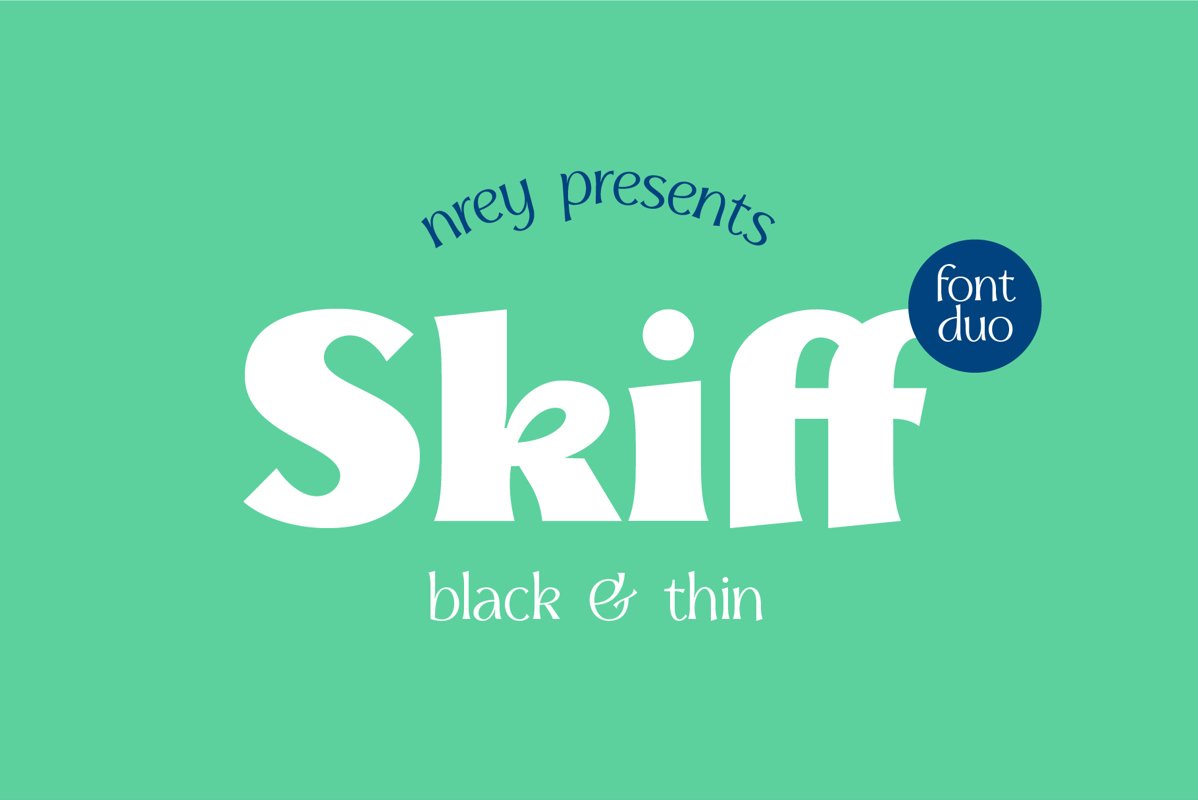
Skiff Black & Thin
**Introducing Skiff!**
Skiff type family is transition from modern antique fonts to sans-serif fonts.
Font has medium contrast and almost serifless sharp edges, which give it a classy, playful and a more contemporary look. Many glyphs has ink traps.
Skiff is a modern font, can take designs to another level.
Is ideal for naming, magazines, short text, logos, branding design, packaging and advertising.